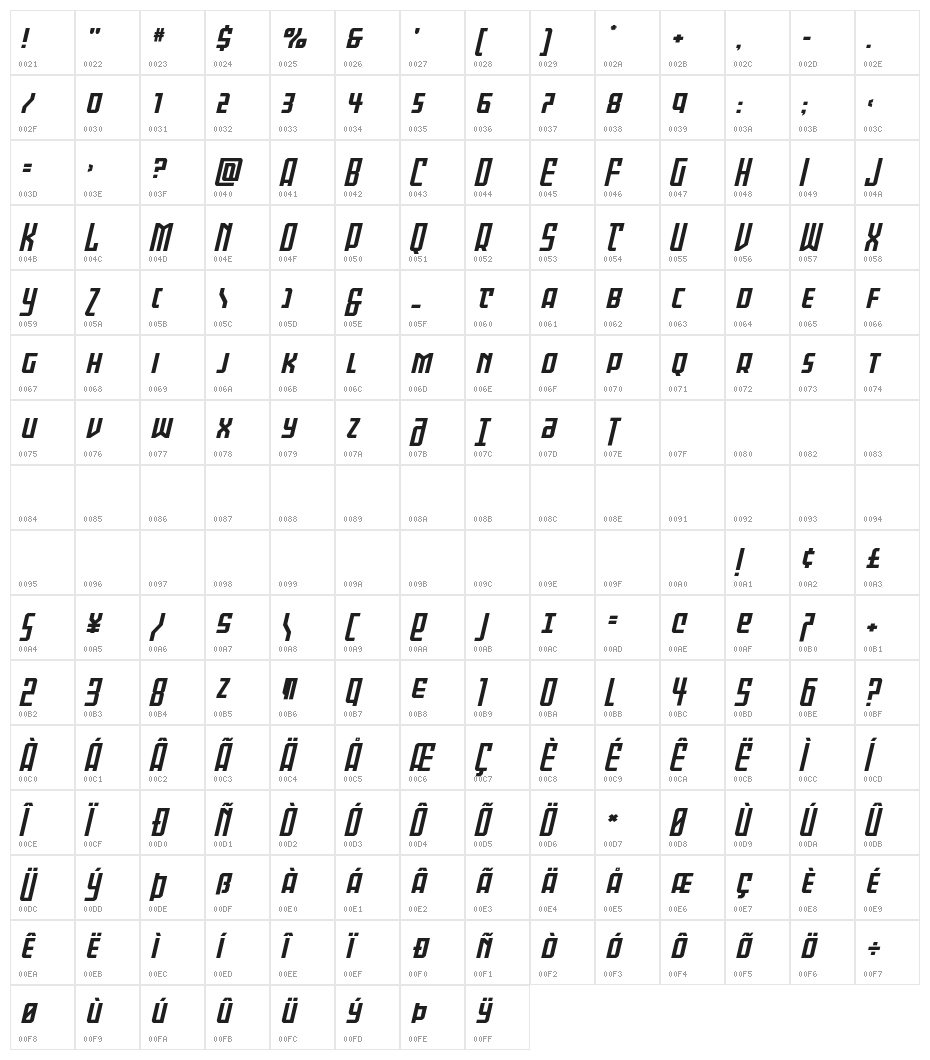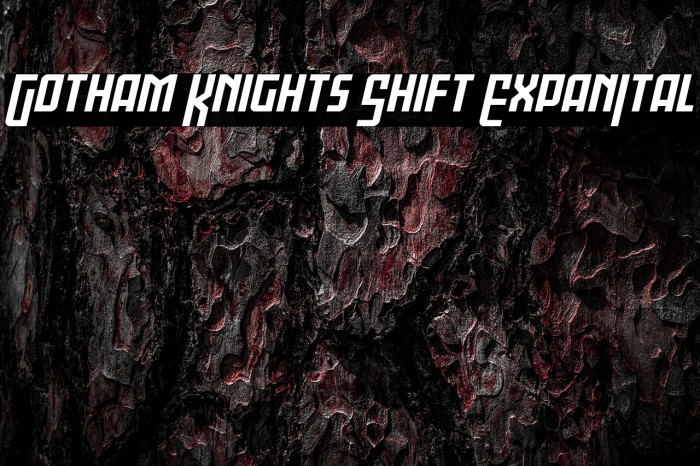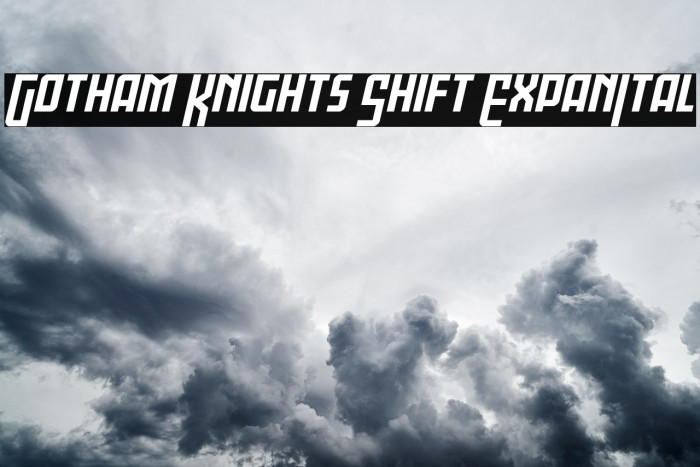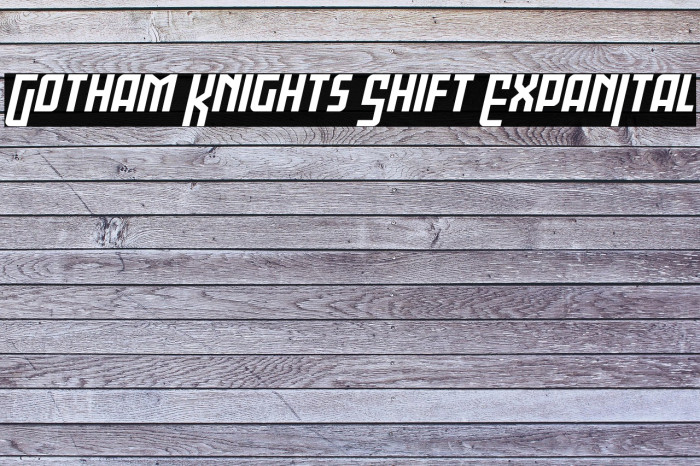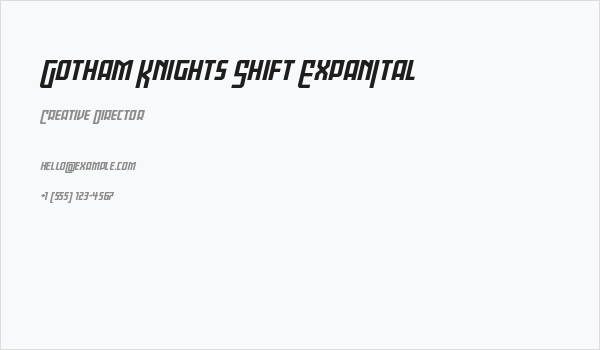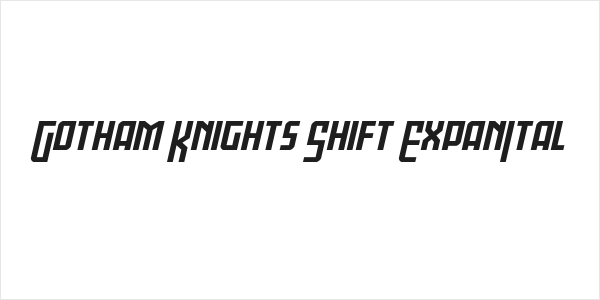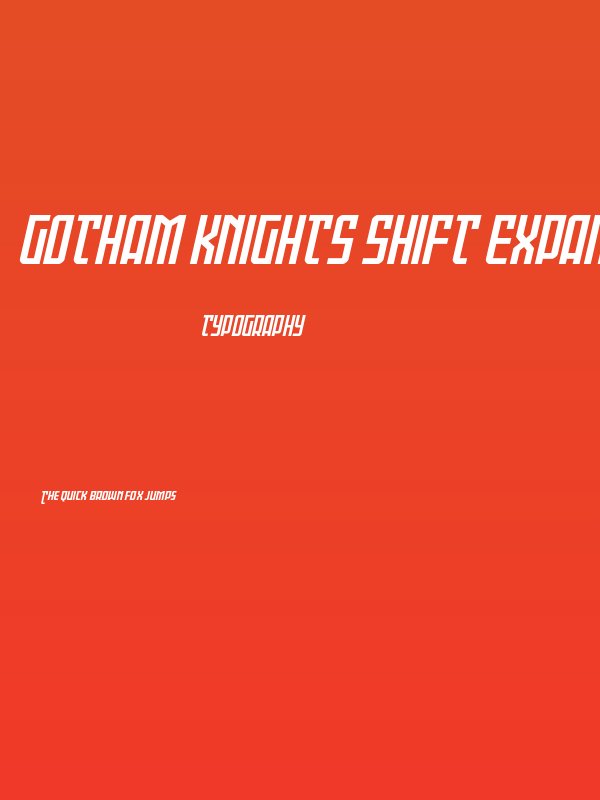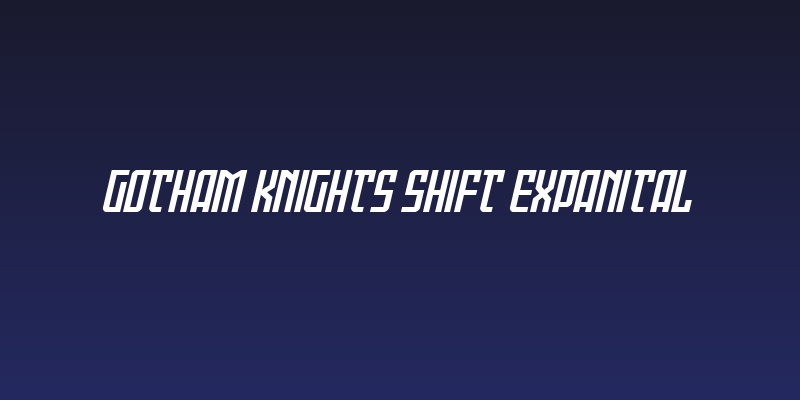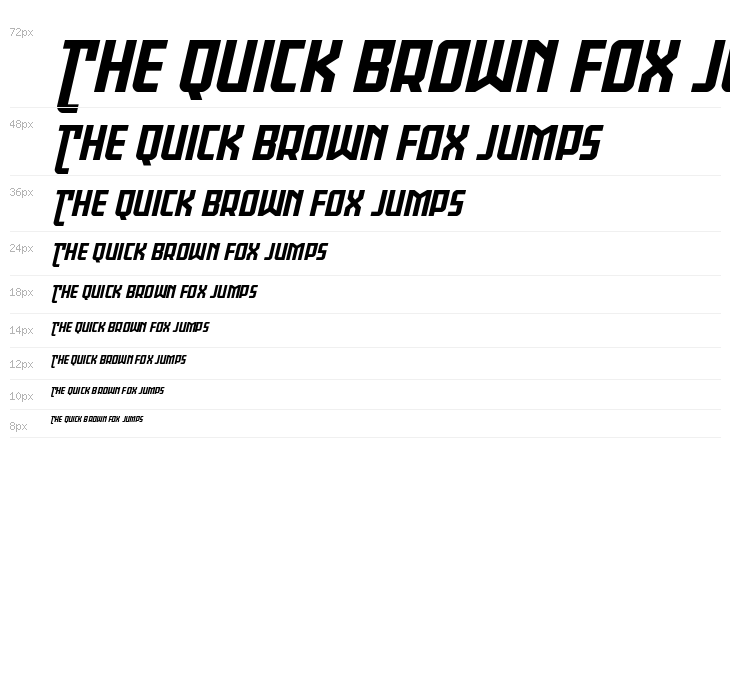
Gotham Knights Shift ExpanItal Font
Gotham Knights Shift ExpanItal Description
This font features a bold, angular design with a futuristic and dynamic appearance. The characters are slightly slanted, giving them a sense of motion and energy. The strokes are thick and consistent, providing a strong visual impact. The geometric shapes and sharp edges contribute to its modern and edgy style. It maintains a uniform width across all characters, enhancing readability while preserving its distinctive look. The font includes a full set of uppercase and lowercase letters, numerals, and a variety of special characters, making it versatile for various design needs.